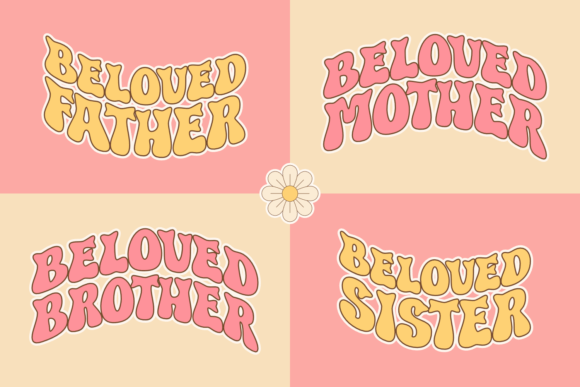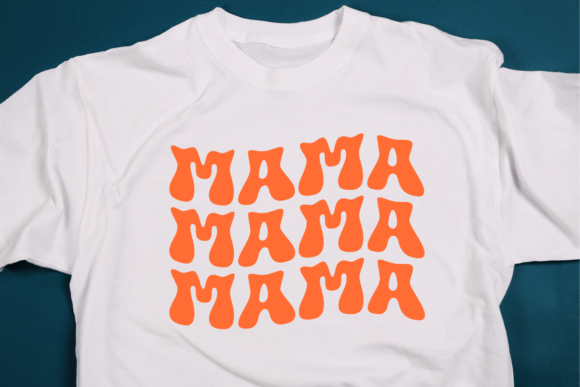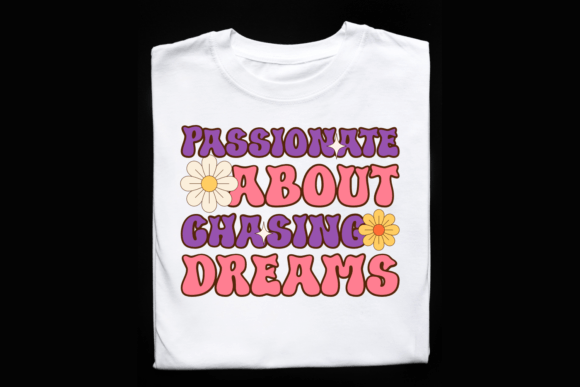
The Joy of First Slice Font: A Fun and Versatile Display Font
I still remember the design project that led me to discover the amazing First Slice font. I was working on a children’s party invitation, and I needed a font that was fun, playful, and eye-catching. After hours of searching, I stumbled upon First Slice, and it instantly became the perfect fit. The thick and beautiful characters had everything I needed to create cute and eye-catching typography. In this article, I’ll share my experience with First Slice, its features, and how to make the most of this fabulous retro font.
An Honest Review of First Slice Font
What I Love About First Slice ✨
- 😊 Fun and joyful display font perfect for creative projects
- ✅ Thick and beautiful characters for eye-catching typography
- 🎉 Perfect for various projects, including titles, posters, banners, signage, apparel, and kids’ t-shirts
- 🌈 Retro vibe that’s sure to add a playful touch to your designs
- ⚠️ Limited use for body text due to its bold and playful nature
- ⚠️ May not be suitable for formal or professional projects
- Experiment with OpenType features, such as glyphs and stylistic alternates, to add more personality to your text.
The Backstory of First Slice Font
First Slice was designed with the intention of creating a fun and joyful display font that would bring a smile to users’ faces. The designer aimed to craft a font that was both playful and elegant, with a retro vibe that’s hard to resist. The result is a versatile font that’s perfect for a wide range of creative projects.
| What type of projects is First Slice best suited for? | First Slice is perfect for creative projects that require a fun and playful touch, such as titles, posters, banners, signage, apparel, and kids’ t-shirts. |
| Can I use First Slice for body text? | While First Slice is a beautiful font, it’s not ideal for body text due to its bold and playful nature. It’s best used for headings and titles. |